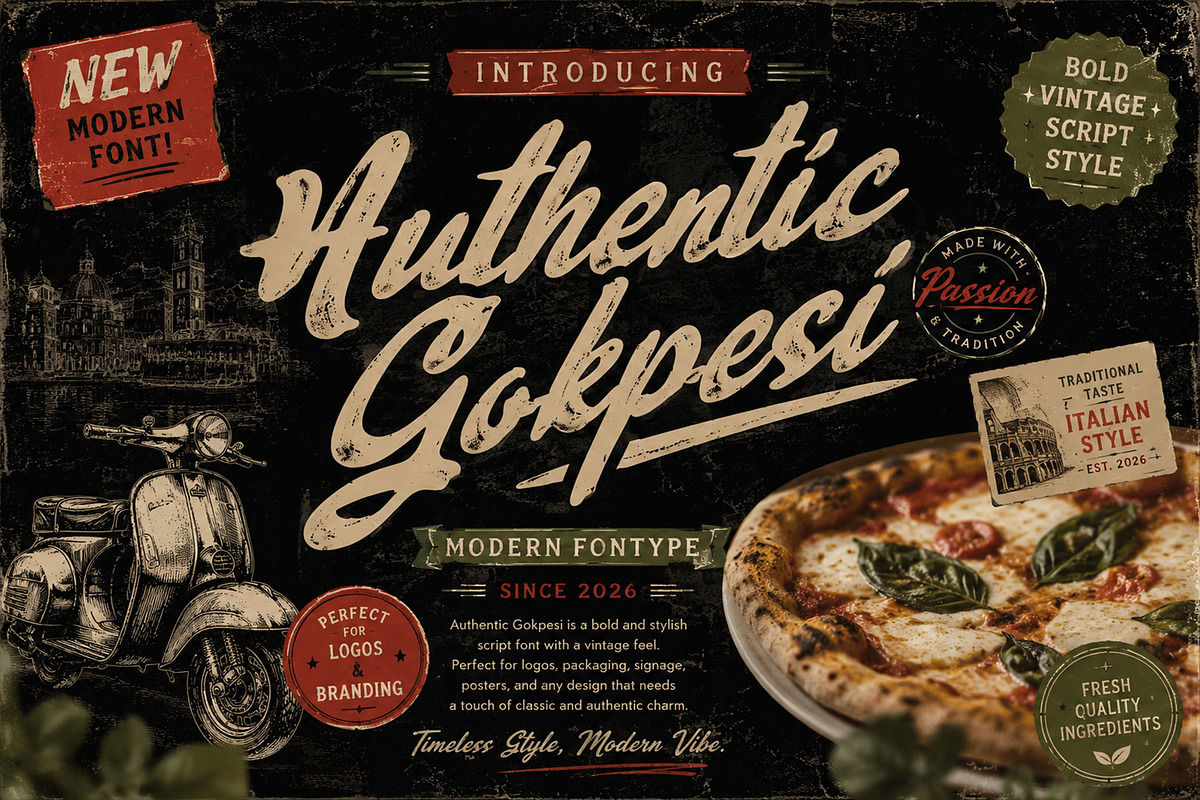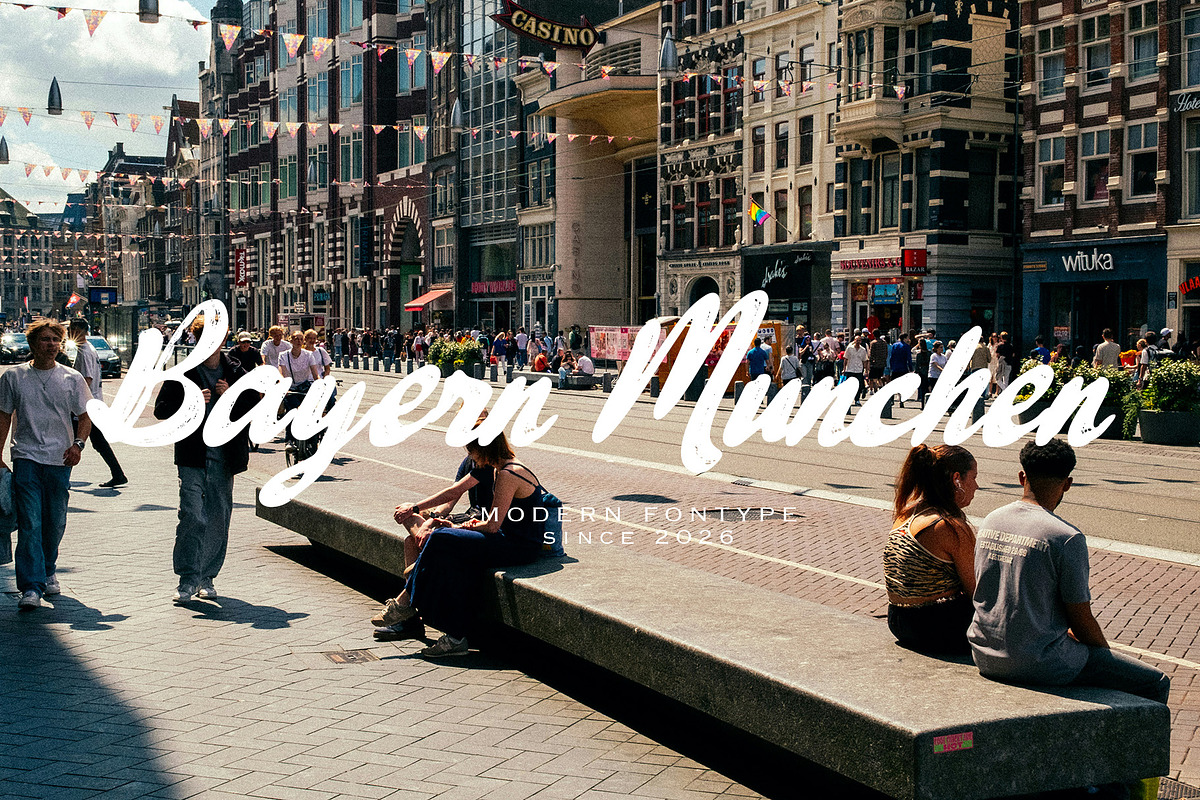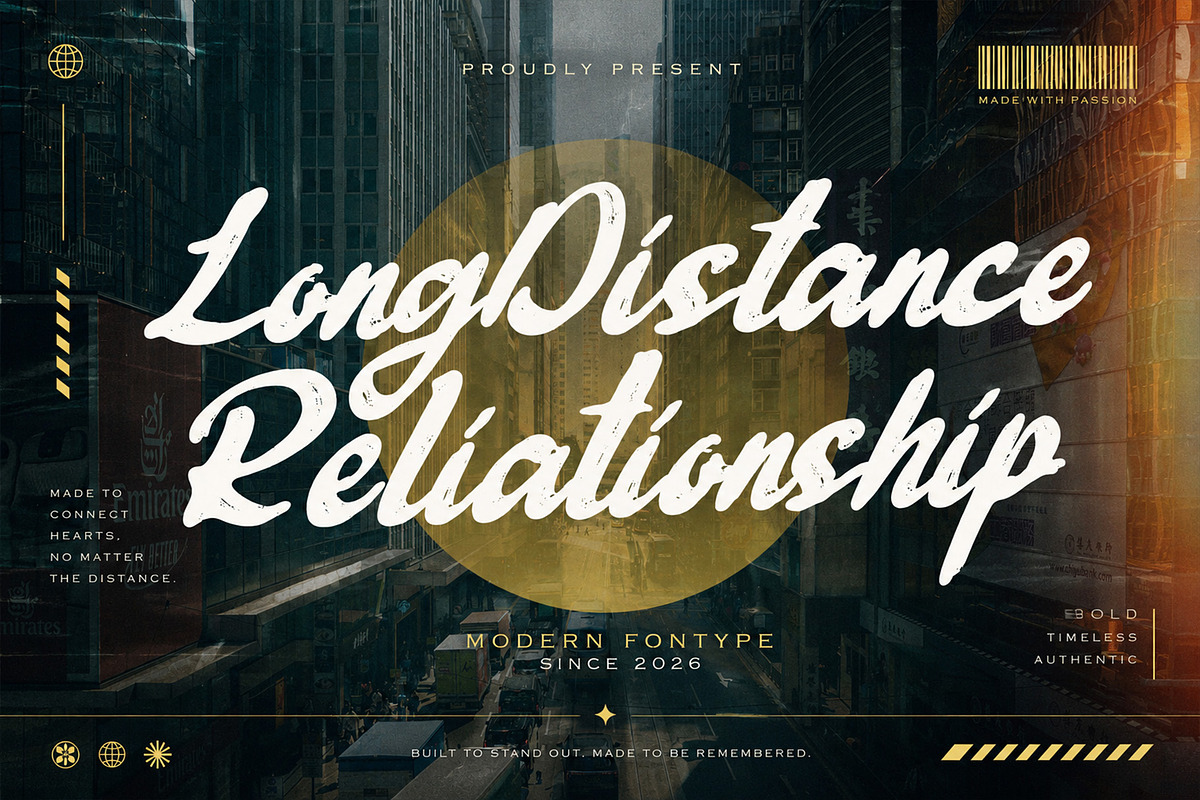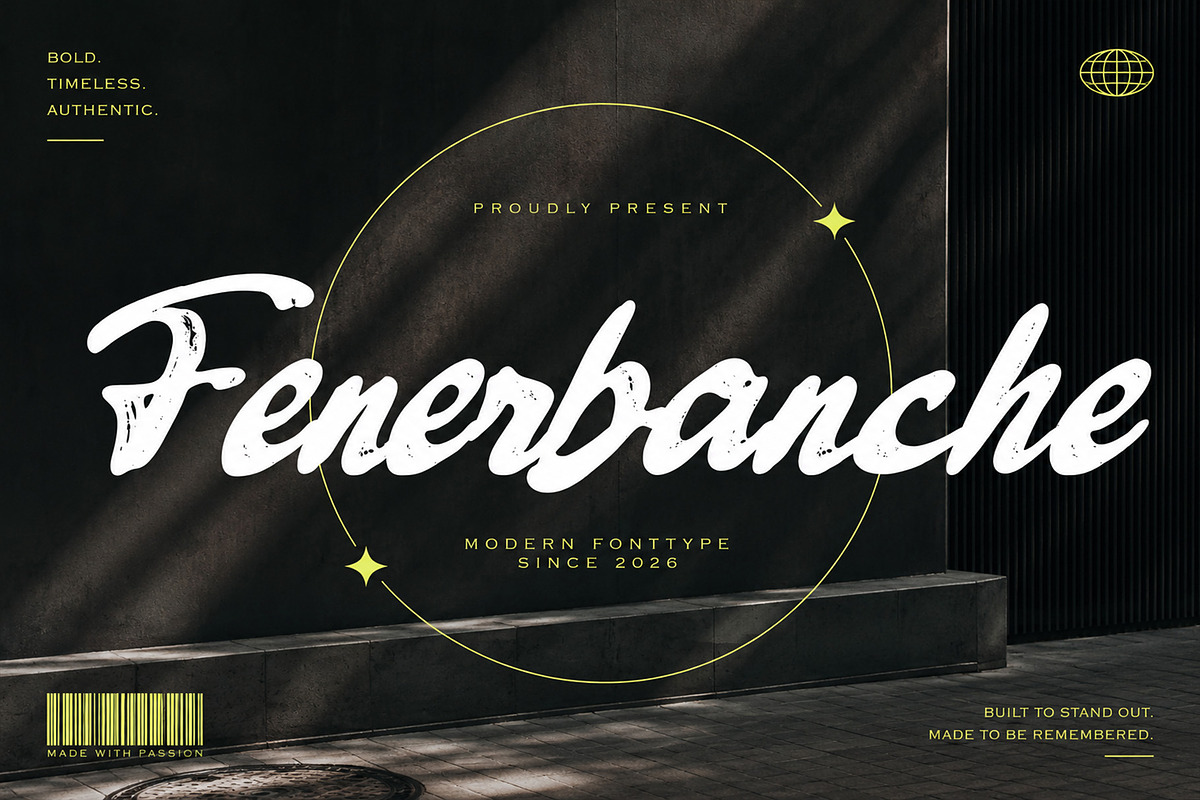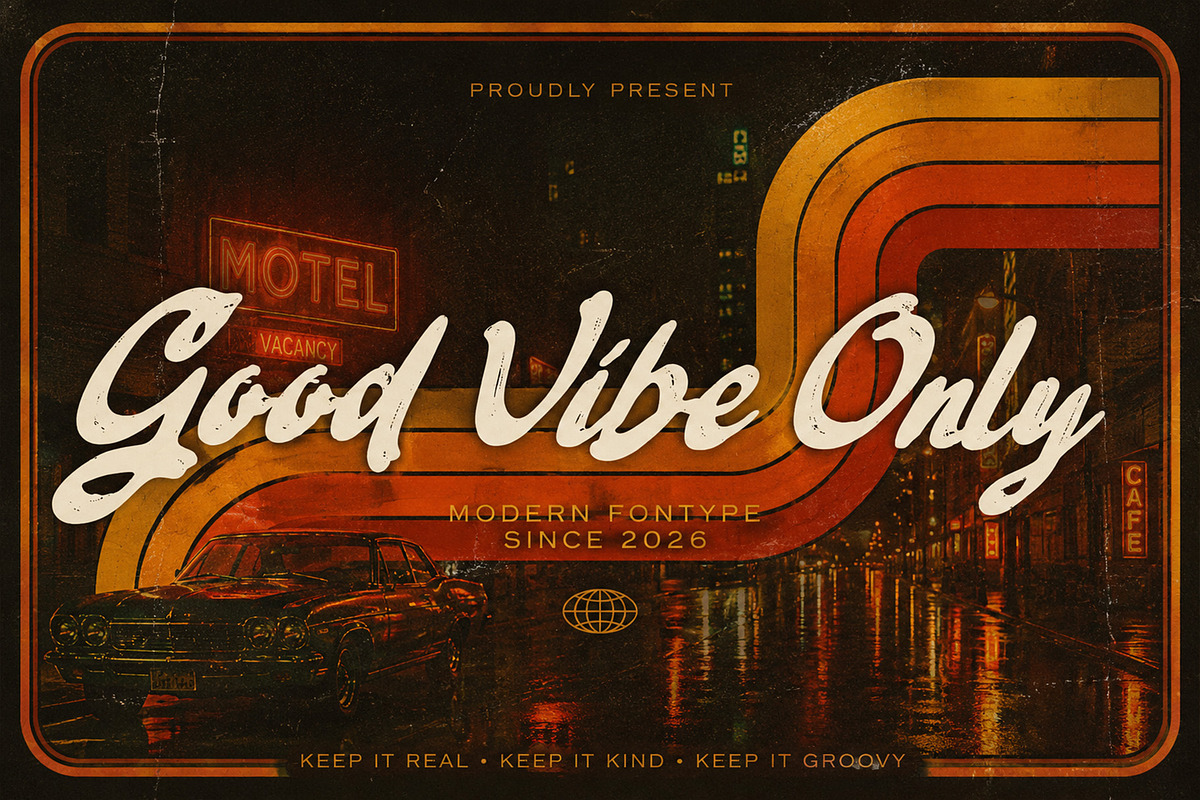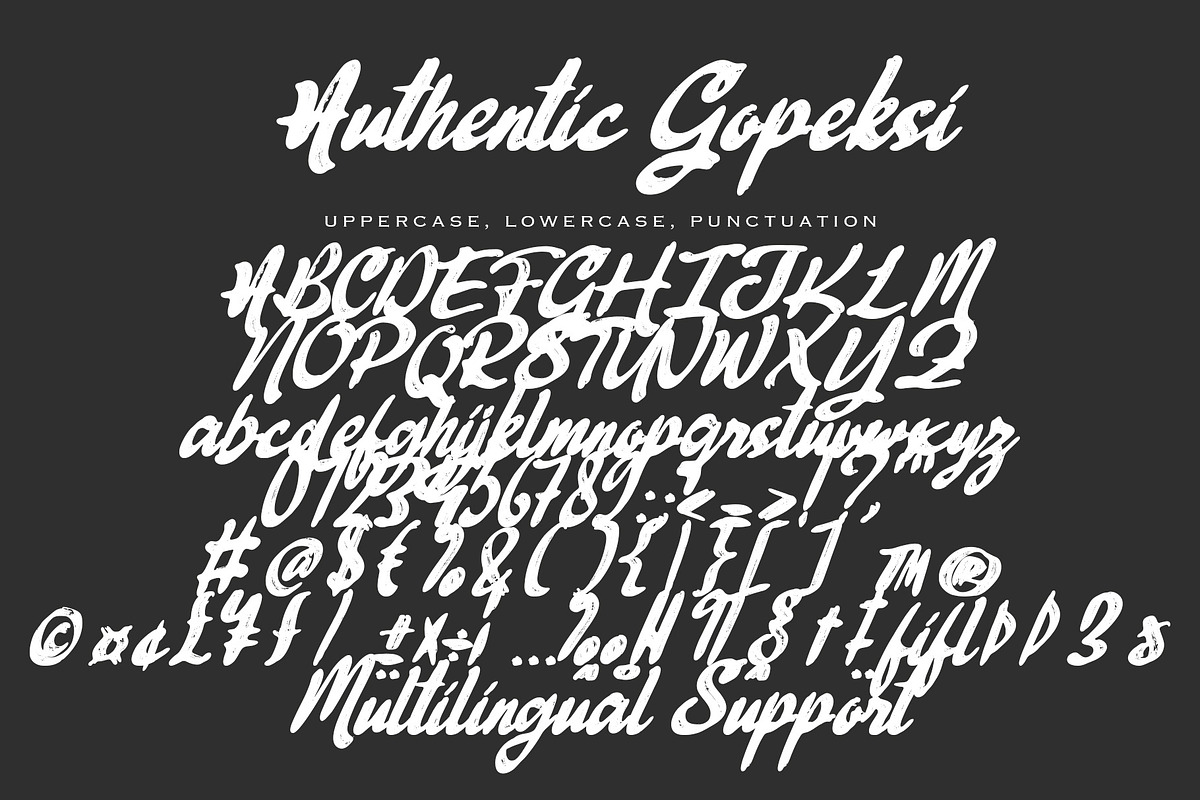
Authentic Gokpesi
Authentic Gokpesi is a bold vintage script font that blends timeless elegance with authentic handcrafted charm. Featuring strong flowing strokes, textured details, and a retro-inspired aesthetic, this typeface delivers a warm and nostalgic feel that instantly stands out. Inspired by classic signage, traditional craftsmanship, and old-world typography, Authentic Gokpesi is designed to bring personality and heritage into modern creative projects.
Perfect for logos, restaurant branding, café packaging, food labels, posters, signage, apparel, menus, merchandise, and editorial designs, this font creates a bold visual statement while maintaining a stylish and approachable character. Its vintage texture and dynamic script style make it especially suitable for rustic, retro, Mediterranean, Italian-inspired, or artisanal branding concepts.
Whether you're building a nostalgic brand identity or designing eye-catching headlines with a classic touch, Authentic Gokpesi offers the perfect balance between vintage authenticity and modern versatility.